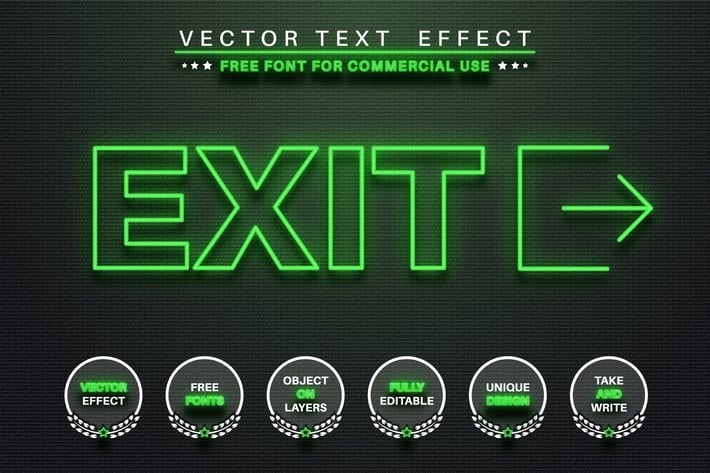
Glow outline - editable text effect, font style
Hello! I'm happy to introduce my new text effect "Exit light". Just write your word and the effect will apply! Be as creative as you like to be in expressing yourself using this unique “Exit light”. Effect is perfect for any project that needs a unique handy touch whatever else your imagination leads you to!